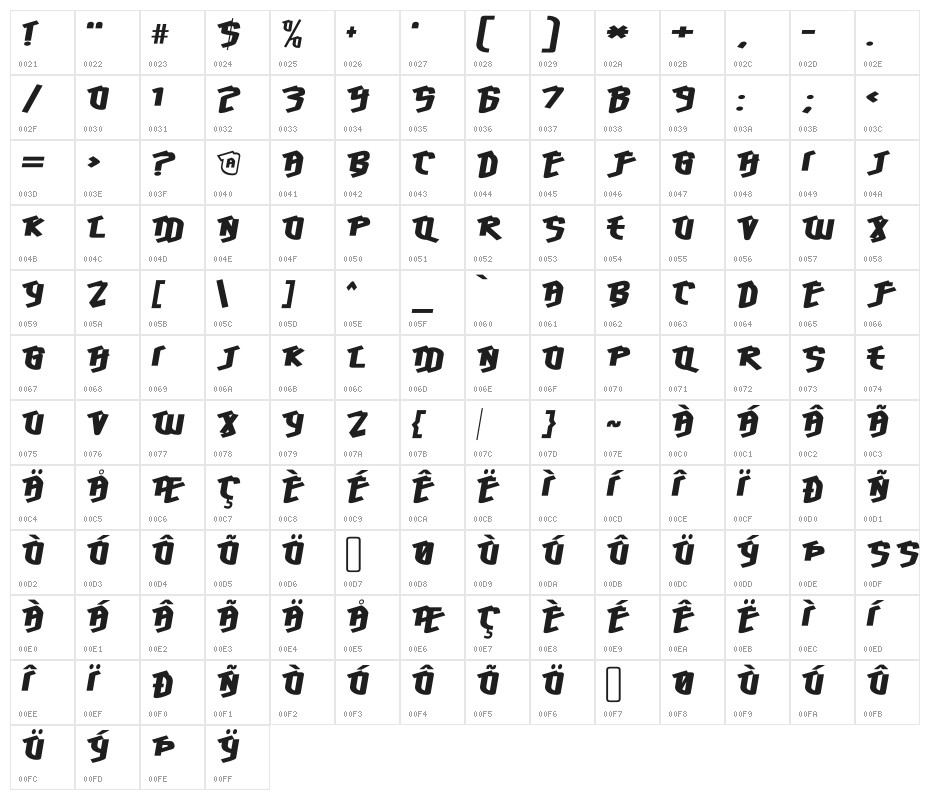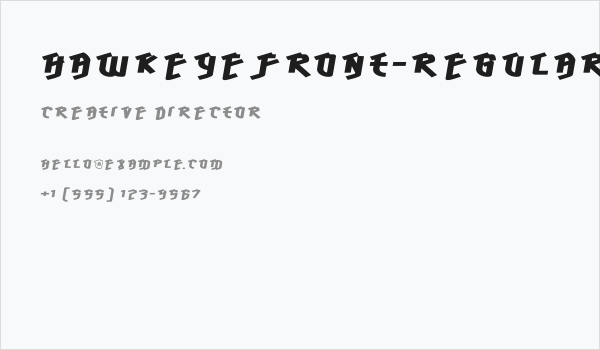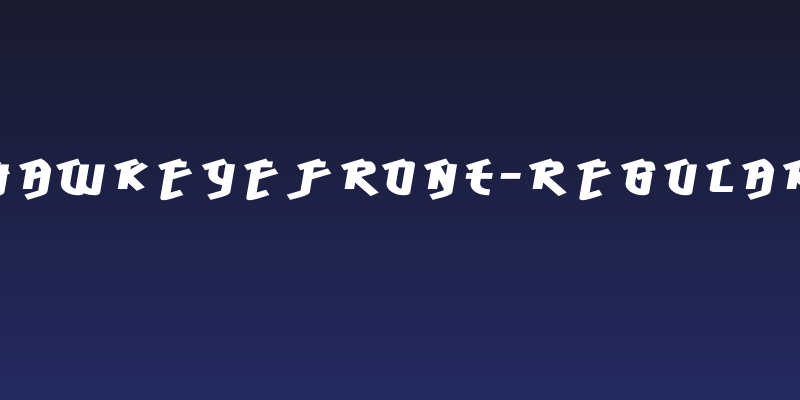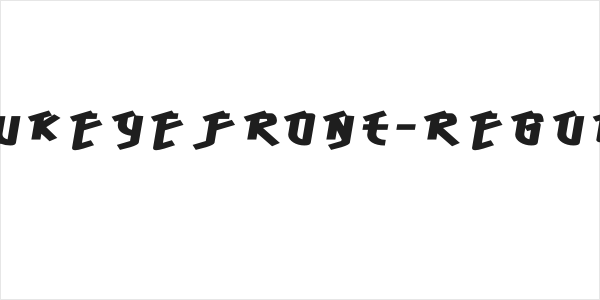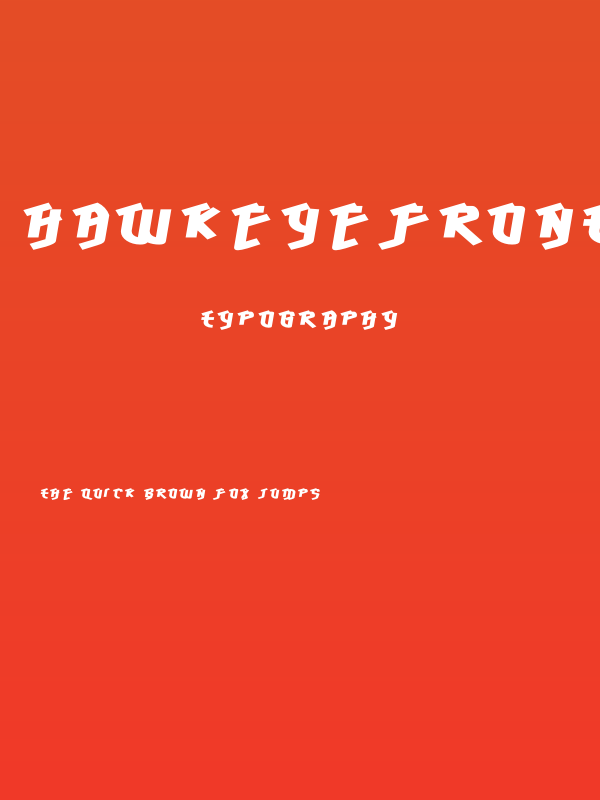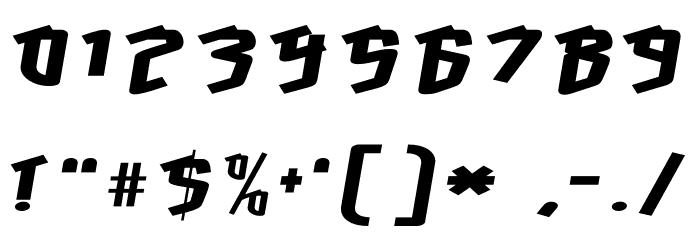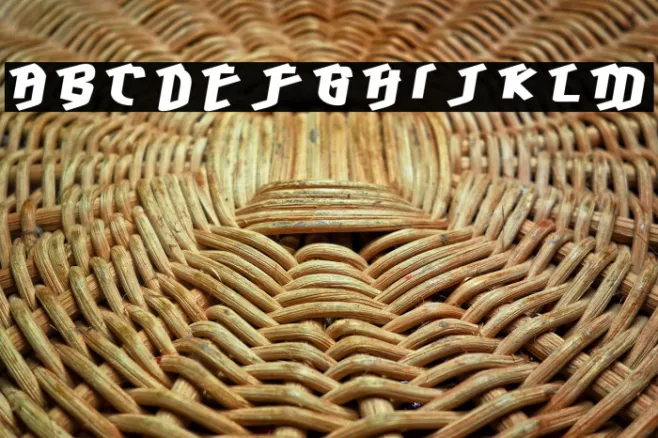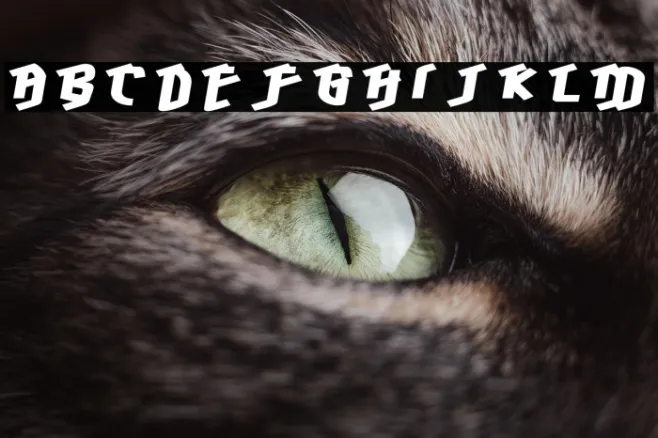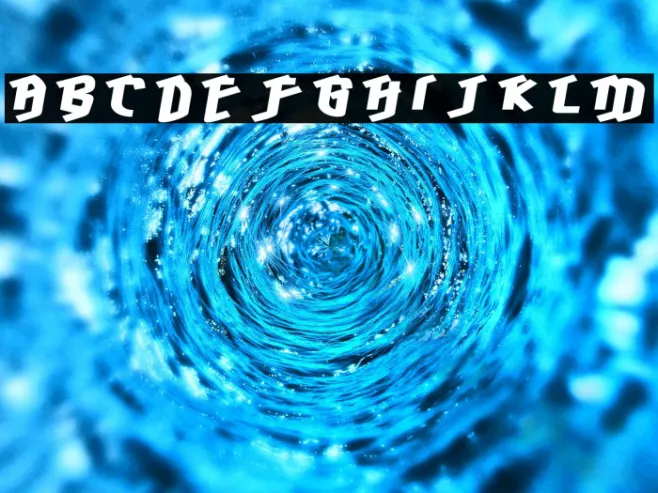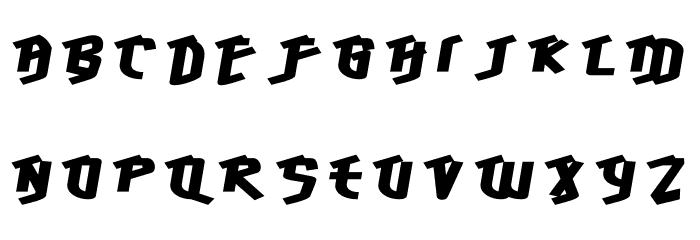
HawkeyeFront-Regular Font
HawkeyeFront-Regular Description
This font features a bold and angular design, reminiscent of traditional blackletter styles but with a modern twist. The characters are sharply defined with a strong emphasis on vertical and diagonal strokes, giving it a dynamic and edgy appearance. The uppercase and lowercase letters maintain a consistent style, with the uppercase letters being slightly more pronounced. The numbers and special characters are equally bold, ensuring uniformity across all glyphs. This font is ideal for projects that require a strong visual impact, such as branding or poster design.
| Proposed Projects | Ideal for branding, poster design, and any project requiring a strong visual impact. |